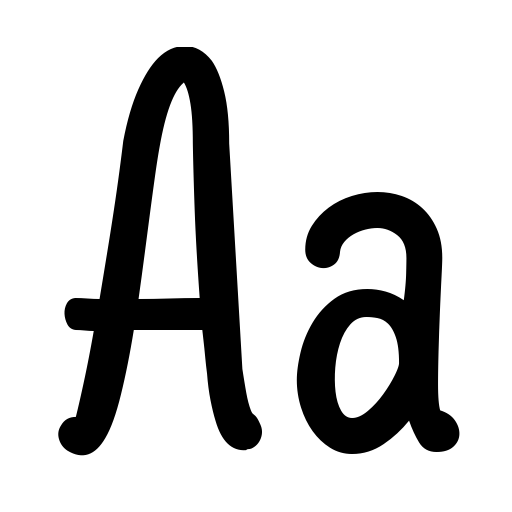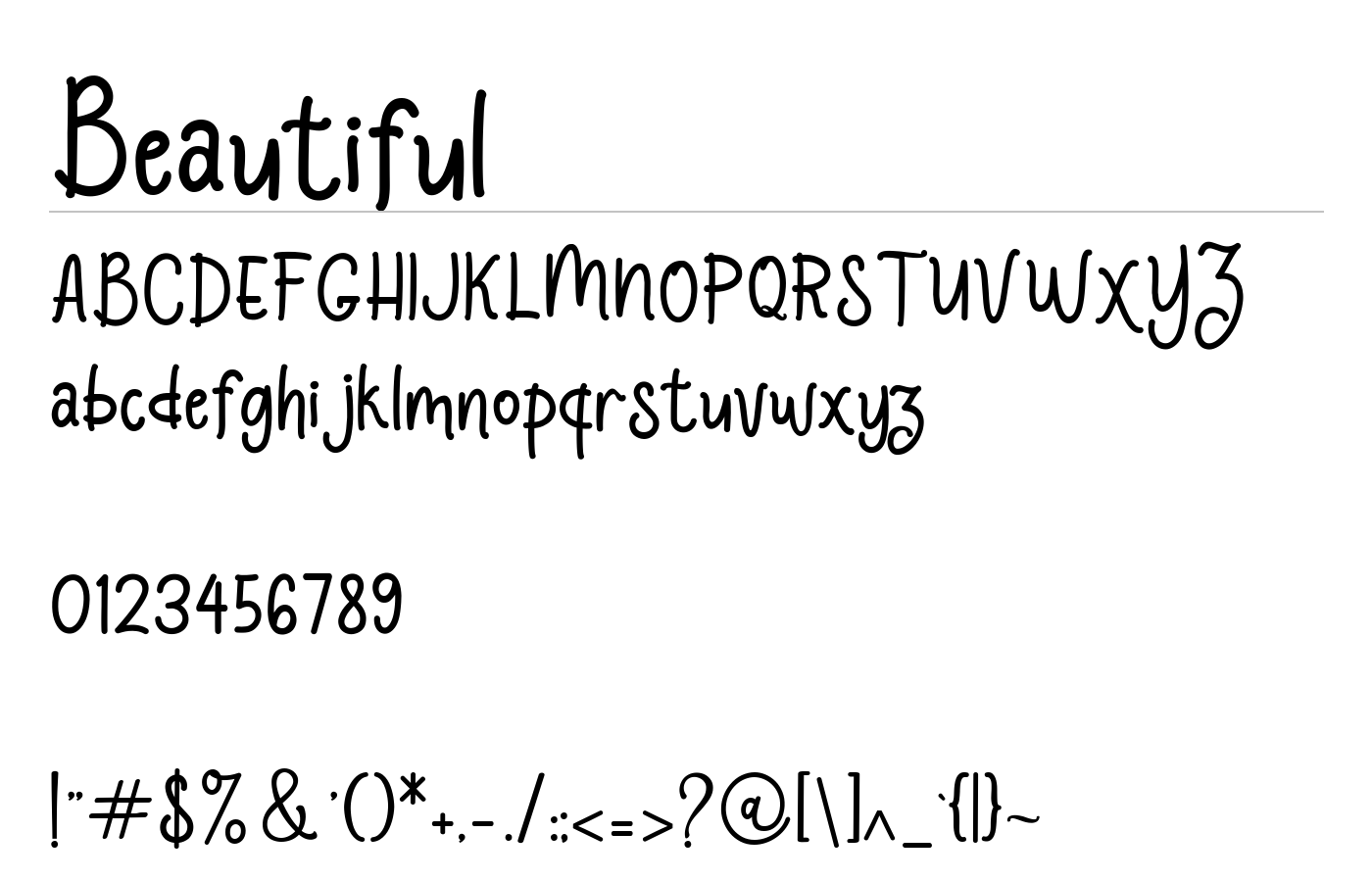
Beautiful Font is a playful and casual handwritten typeface with a light, airy feel and a distinctive quirky character style. Its tall, narrow letterforms with rounded edges and uneven strokes create a friendly, approachable vibe perfect for creative projects, children’s content, and informal branding. This font works best in headlines, logos, and packaging where a personal, whimsical touch is desired.